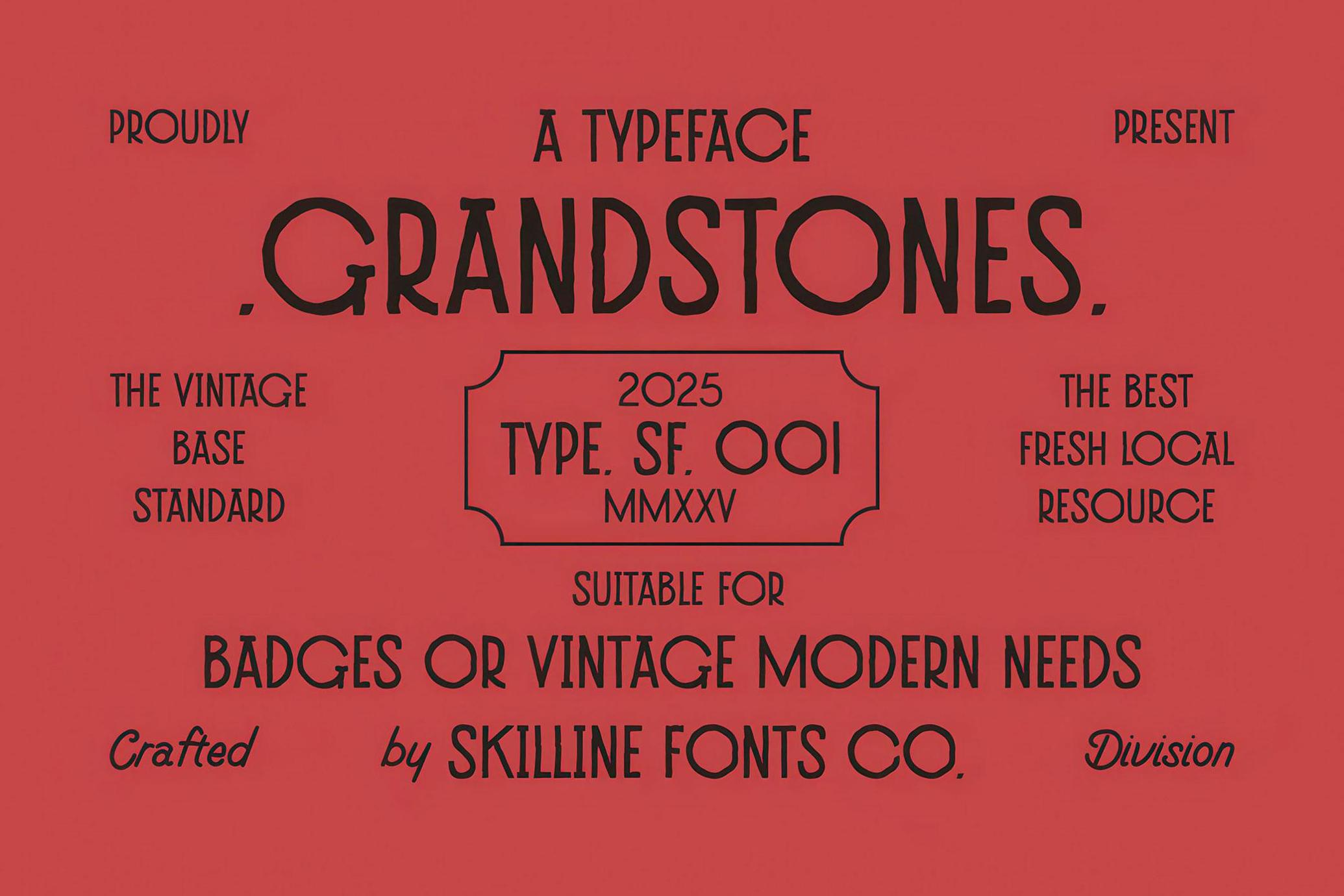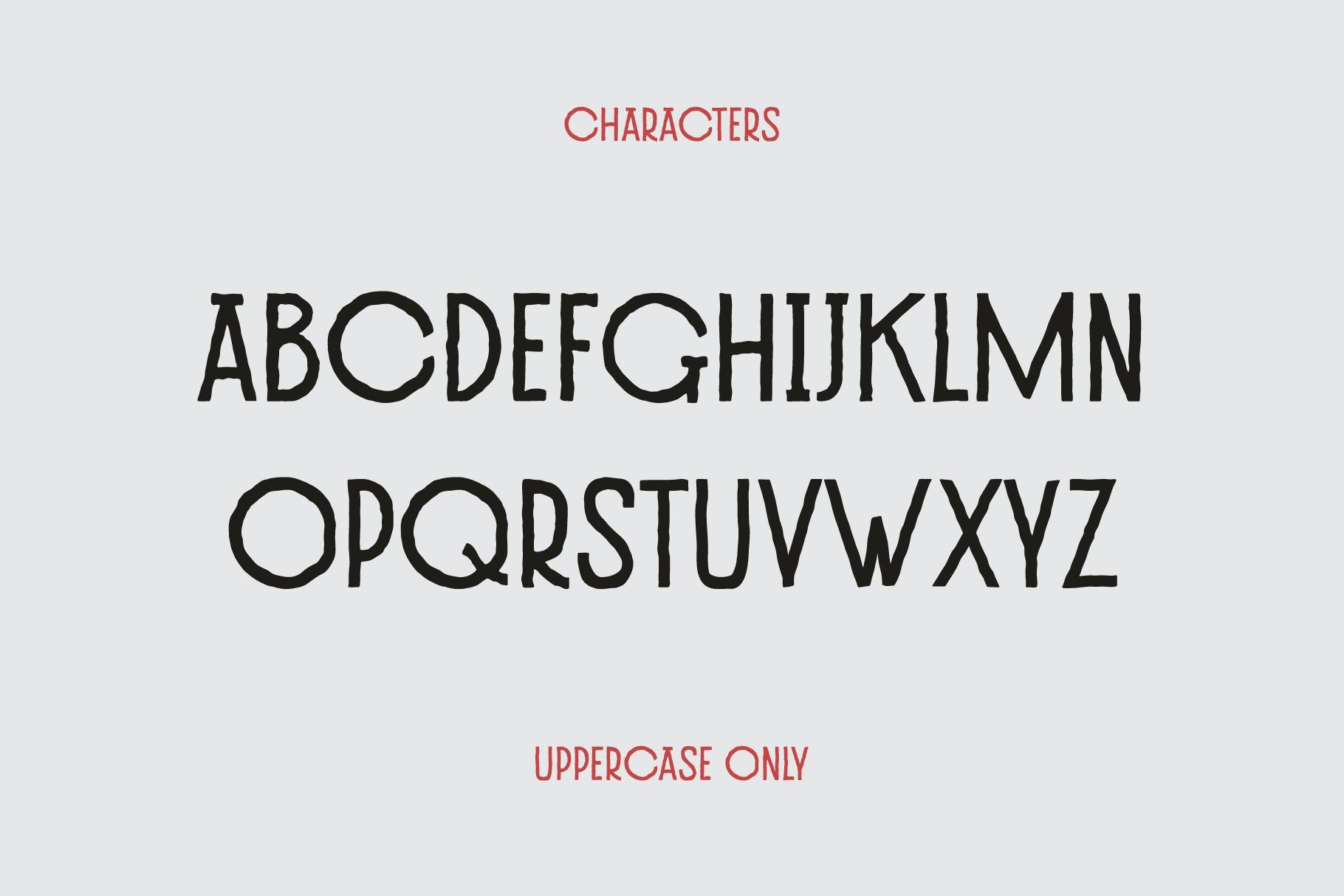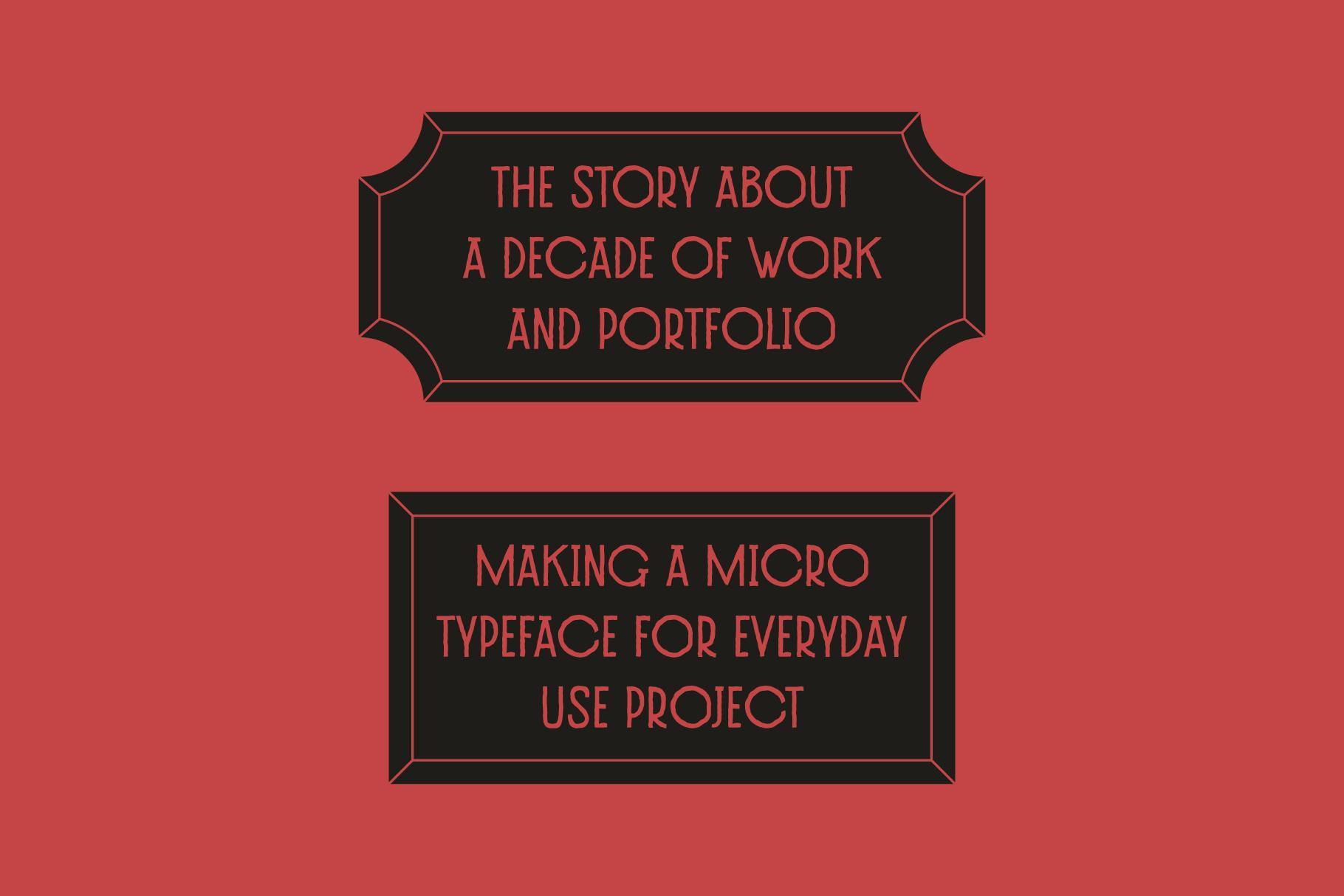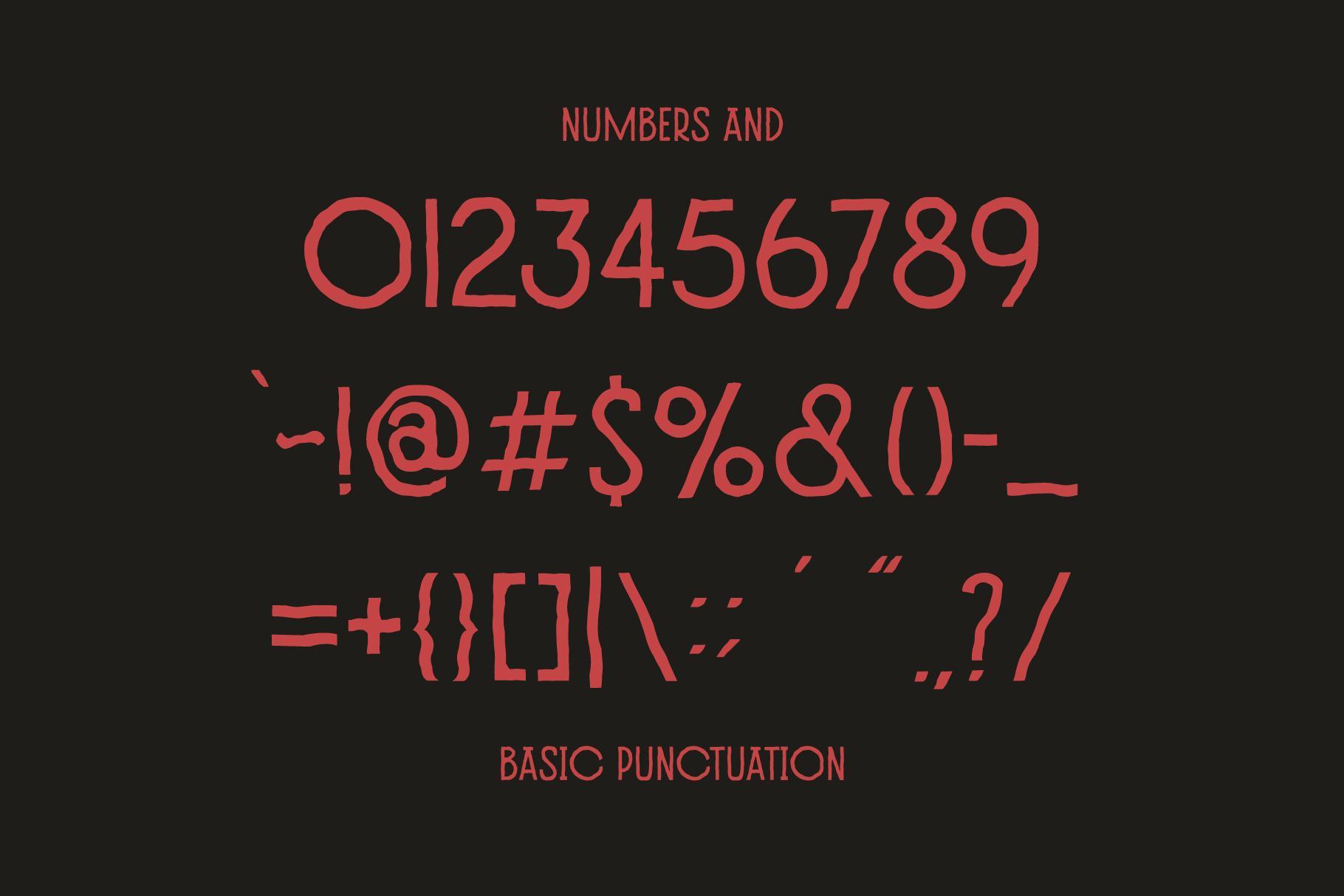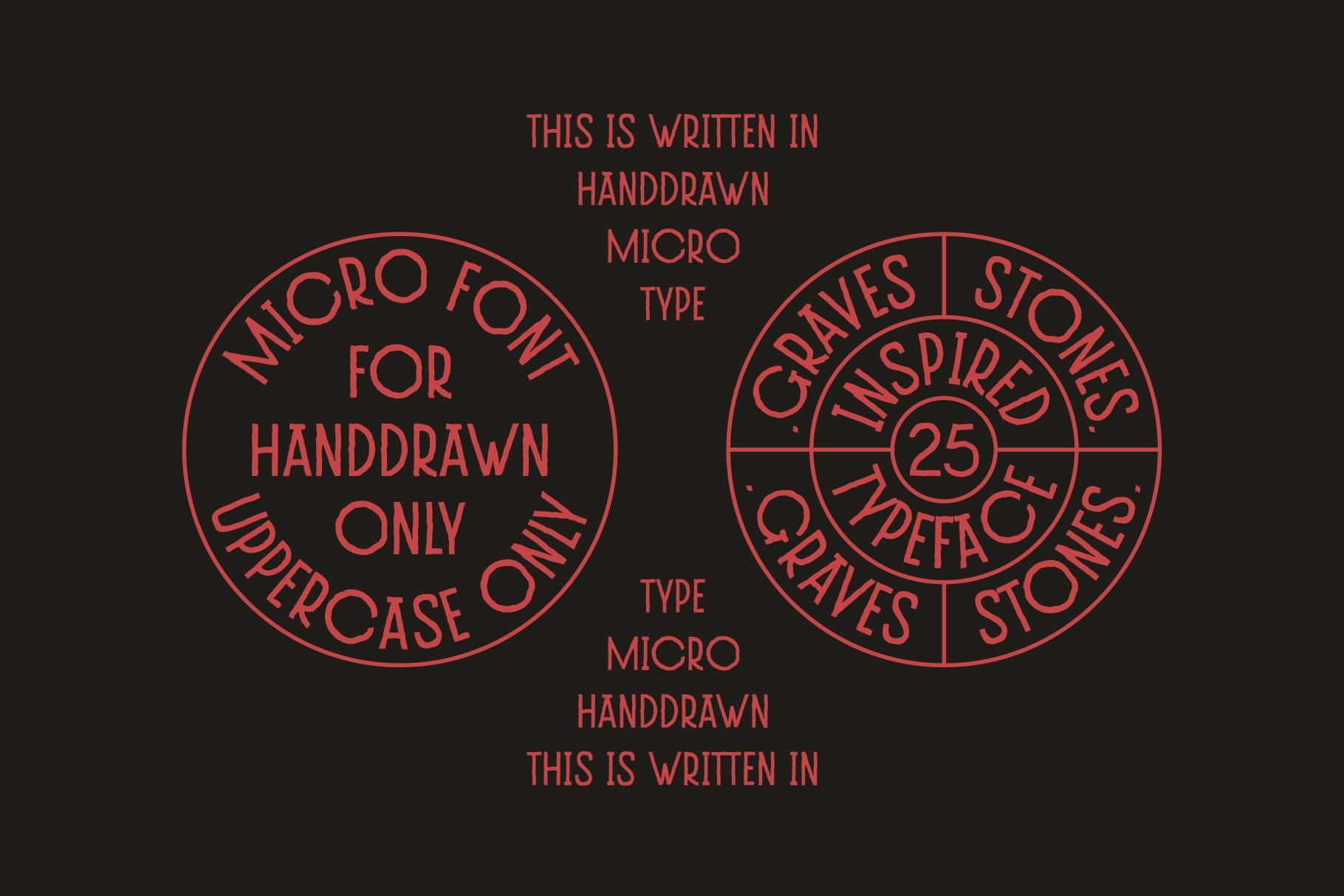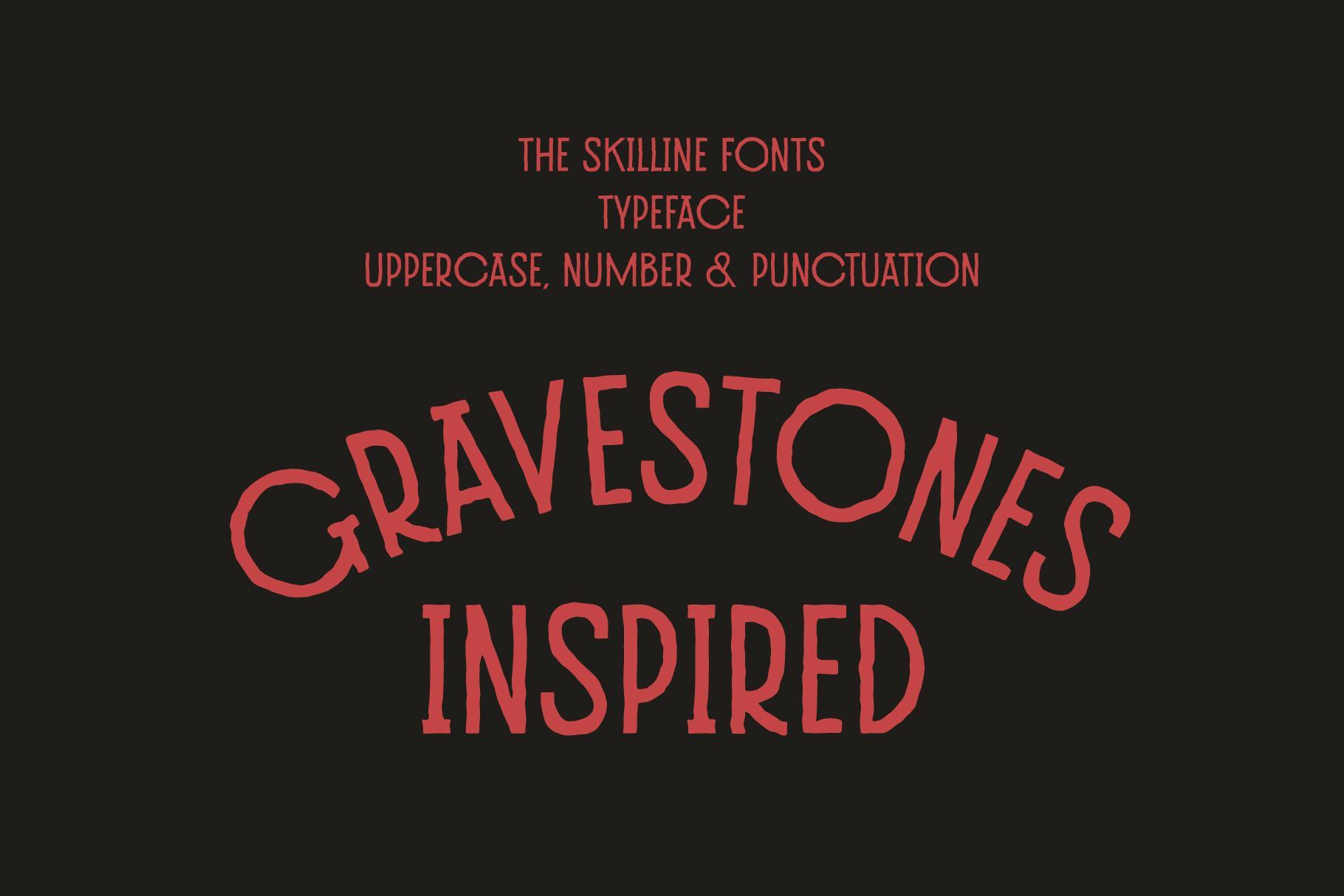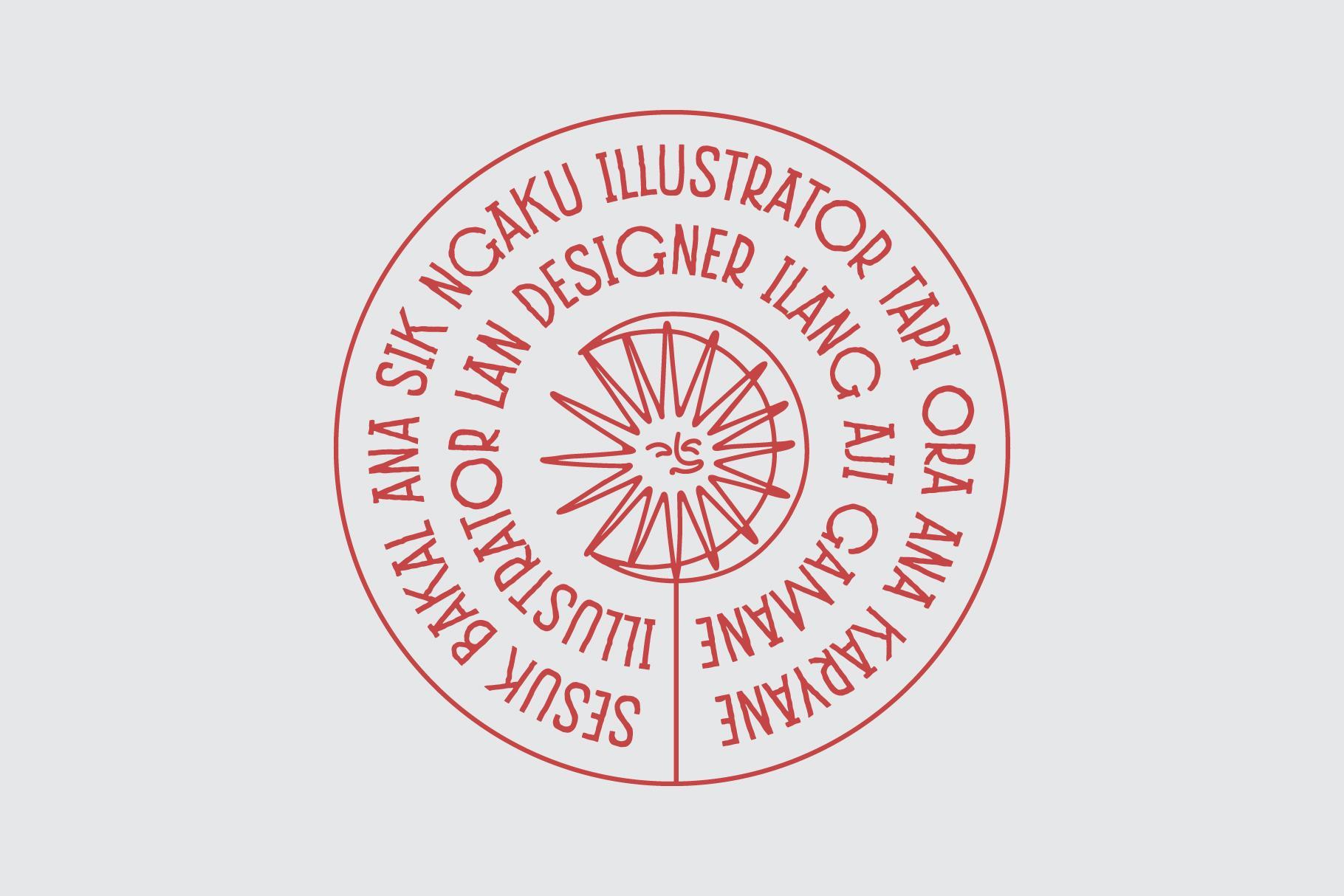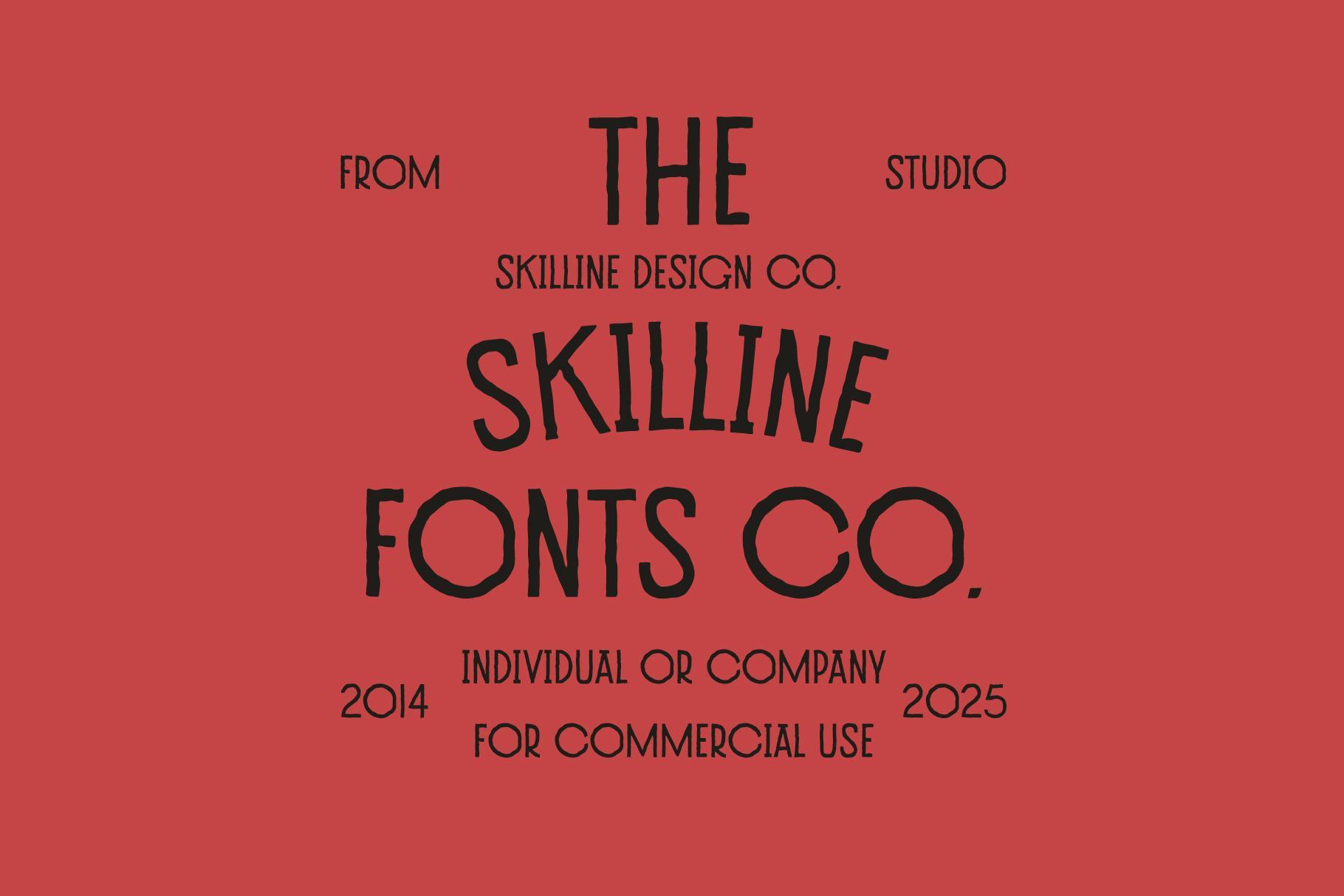
Grandstones - Vintage Modern Font
SFC Grandstone
Grandstones is a hand-drawn display font inspired by vintage gravestone lettering , crafted with irregular strokes, organic lines, and bold personality. Designed for modern branding with a nostalgic twist, it brings a unique balance of rugged authenticity and refined artistry. Whether you're building a retro identity, designing editorial spreads, or crafting bold packaging, Grandstones adds instant character to your projects.
Its uppercase-only structure with handcrafted imperfections gives it an artisanal quality, perfect for badges, logos, posters, labels, and merchandise.